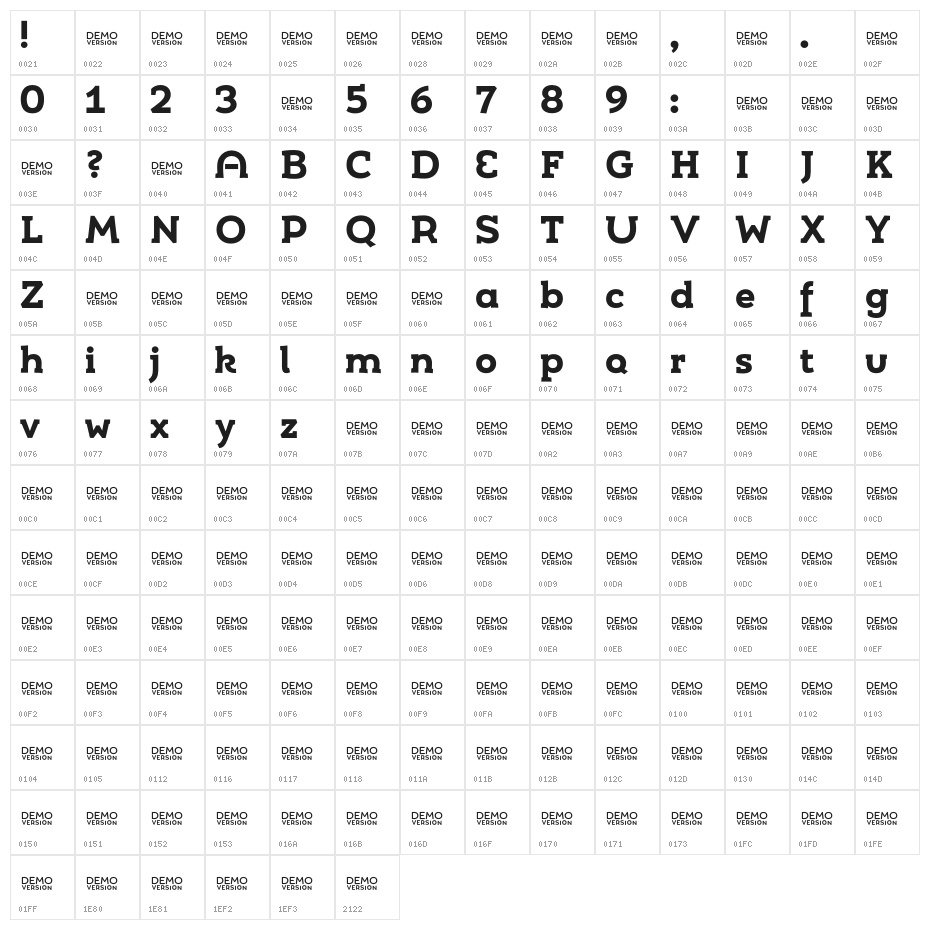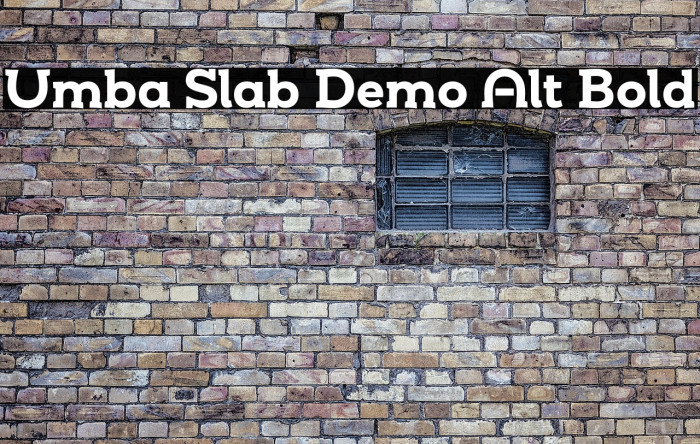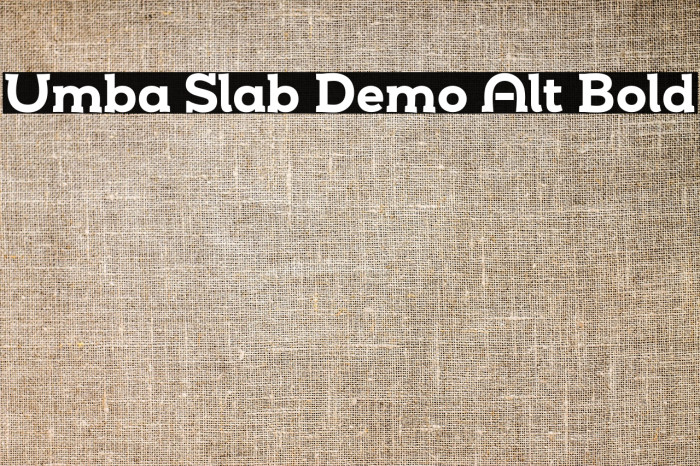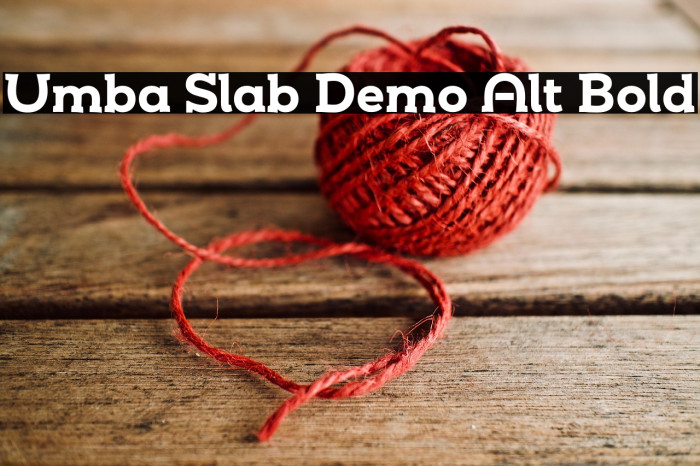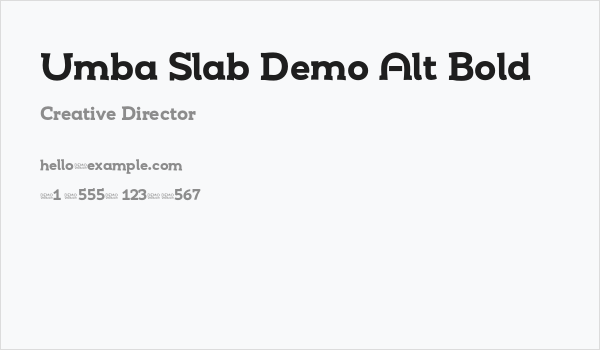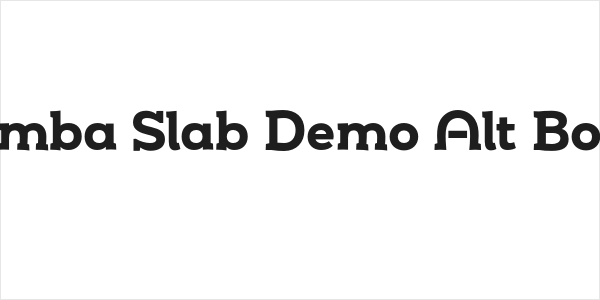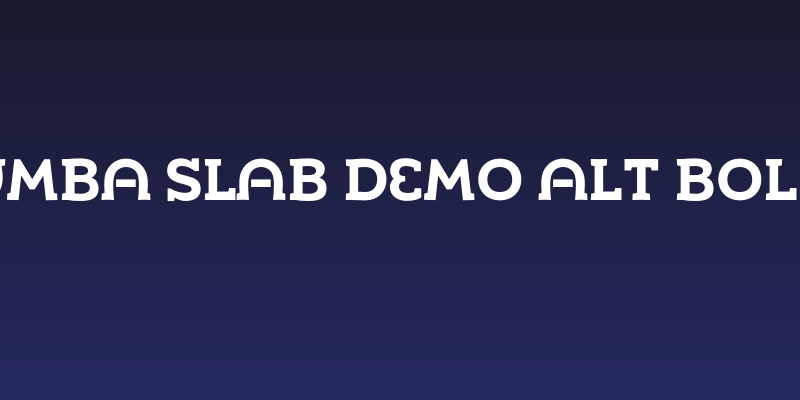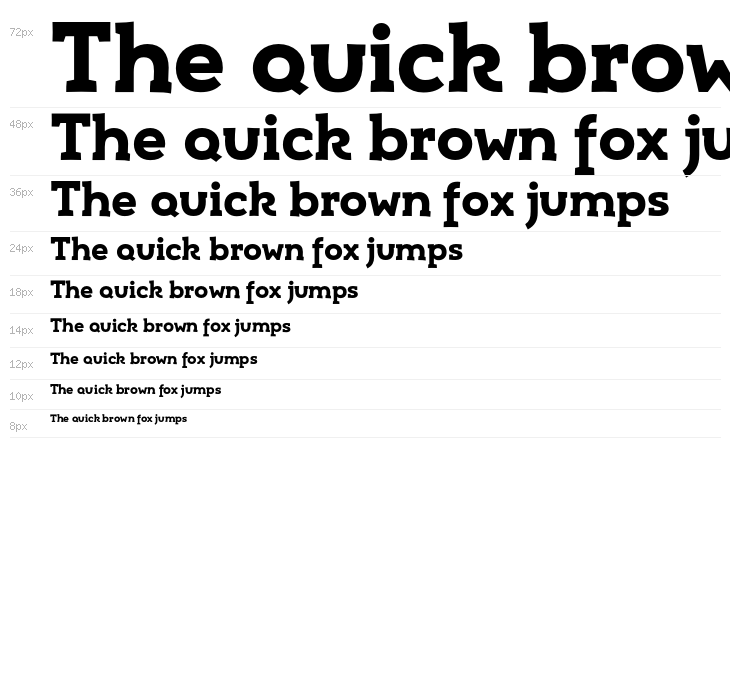
Umba Slab Demo Alt Bold Font
Umba Slab Demo Alt Bold Description
This font features a bold and robust slab serif style, characterized by thick, block-like serifs and a strong presence. The uppercase letters are uniform in height, with a slight curve on the terminals, giving them a modern yet classic feel. The lowercase letters maintain a consistent weight, with rounded edges that soften the overall appearance. Numbers are bold and clear, ensuring readability. The special characters are distinct and match the overall aesthetic, making this font versatile for various design needs.